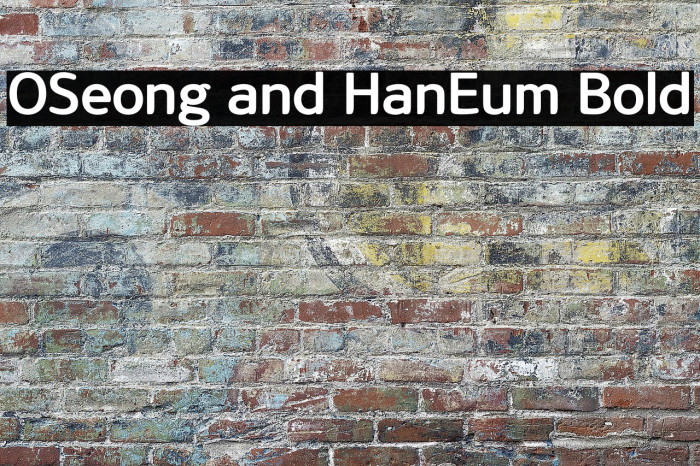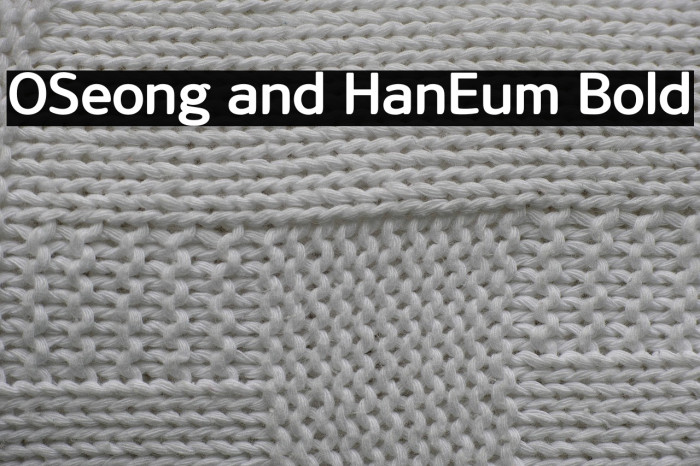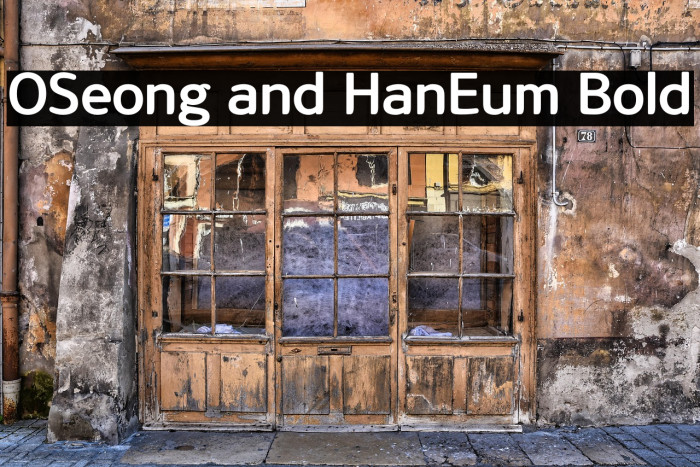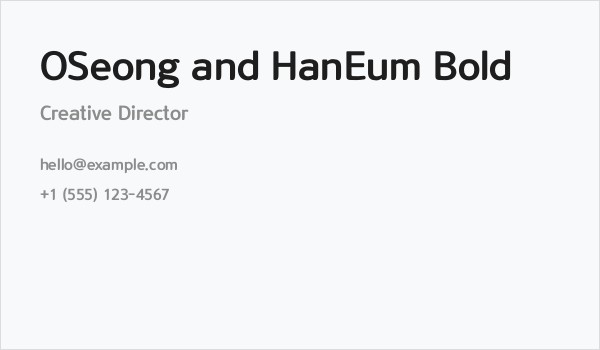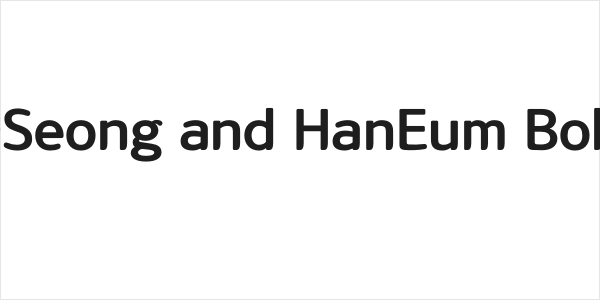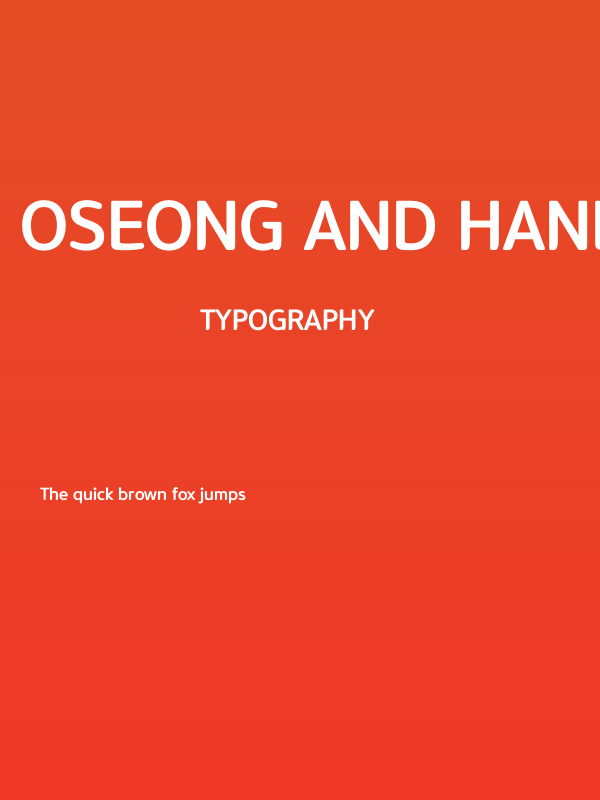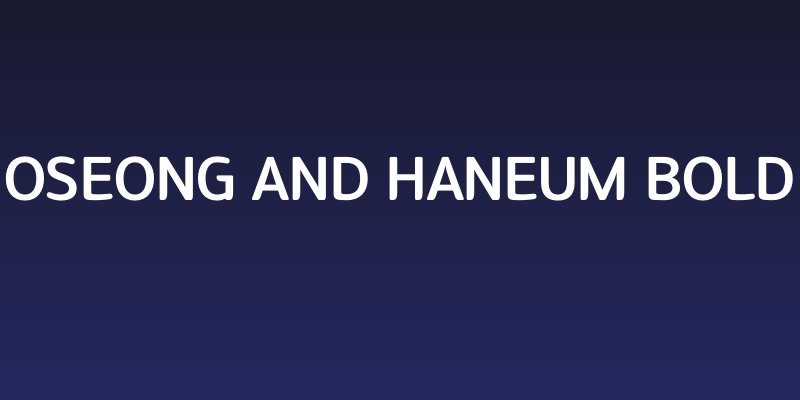
OSeong and HanEum Bold Font
OSeong and HanEum Bold Description
A bold, rounded sans-serif typeface with uniform stroke thickness, open counters, and smooth curves, providing excellent legibility and a friendly appearance.
| Overall Style | Modern, Friendly |
| Use Case | Headlines, Logos, Posters, User Interfaces |
| Proposed Projects | Branding, advertising, posters, digital interfaces, packaging, signage. |